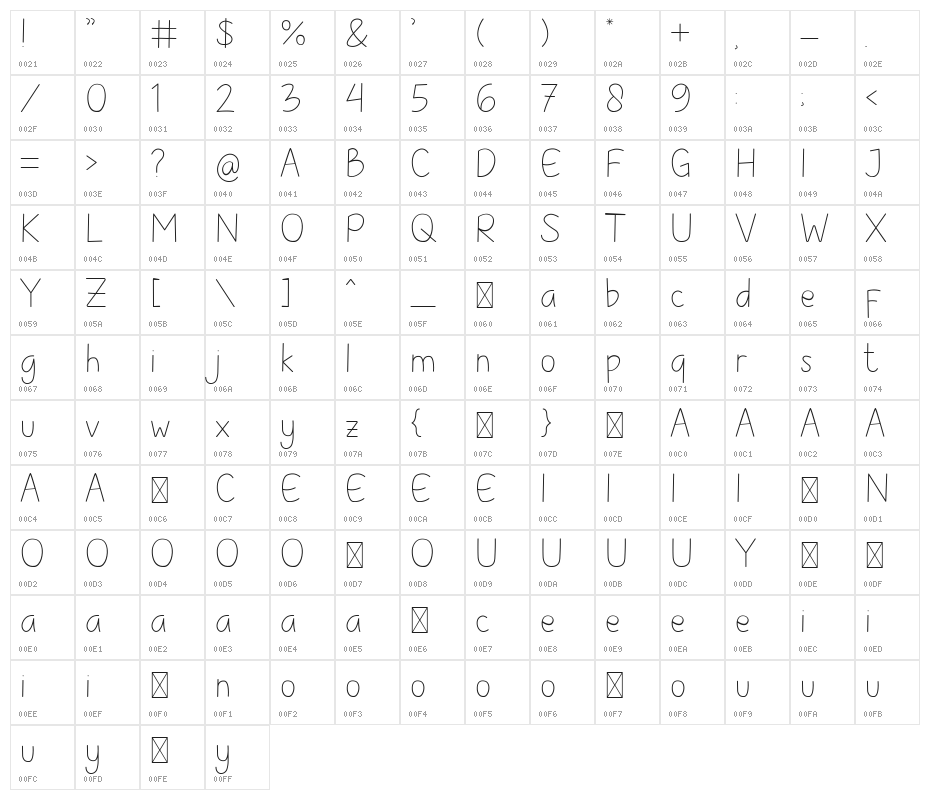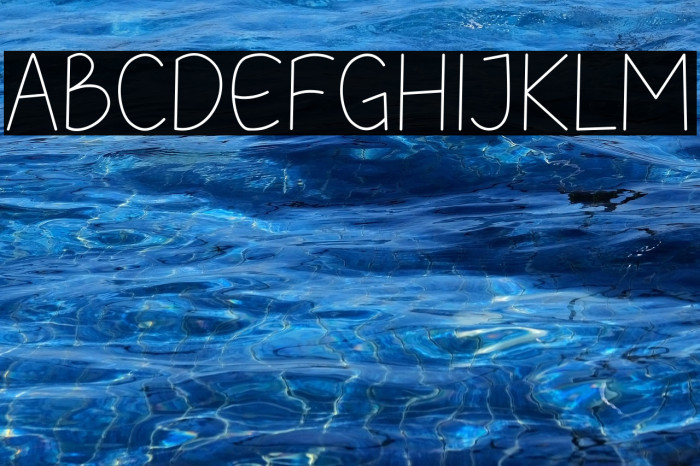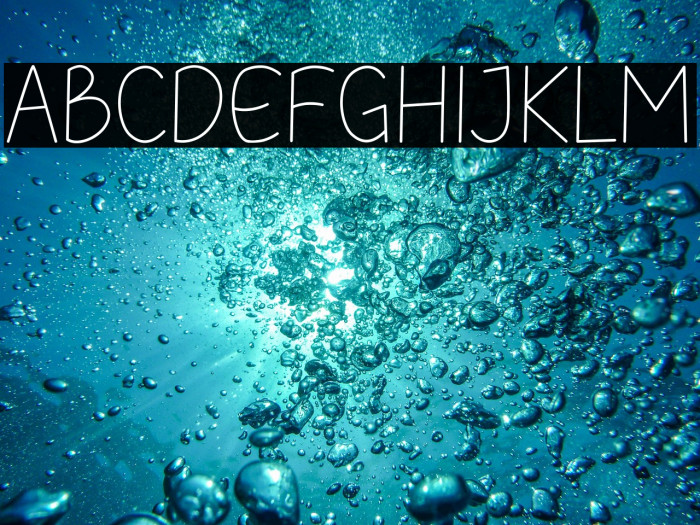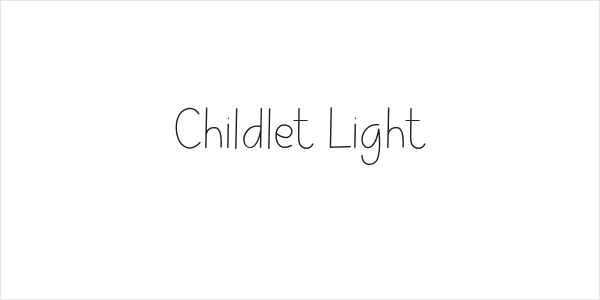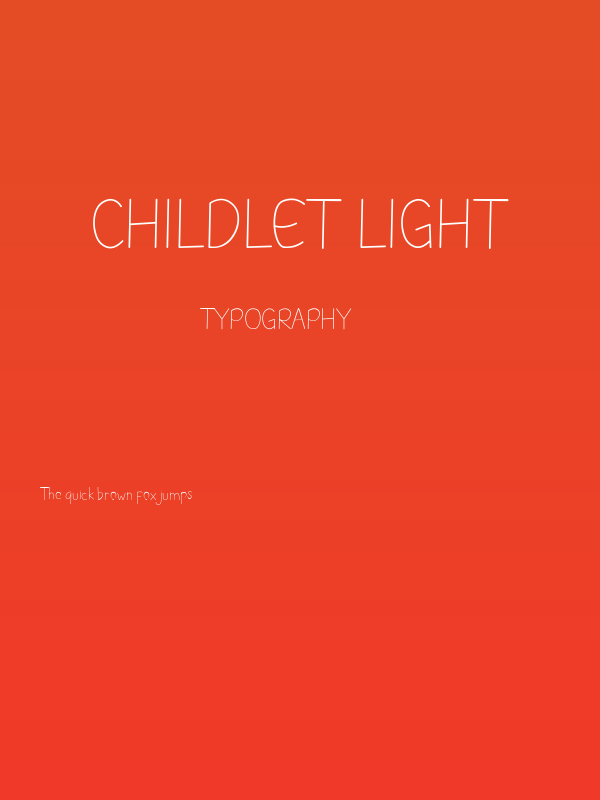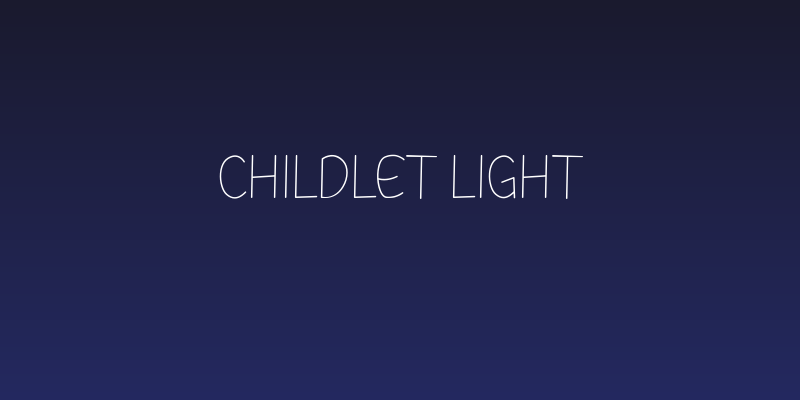
Childlet Light Font
Childlet Light Description
This font features a playful and whimsical style, characterized by its thin, light strokes and rounded edges. The letters are slightly irregular, giving it a hand-drawn appearance that adds a touch of charm and personality. The uppercase and lowercase letters maintain a consistent height, contributing to a clean and cohesive look. Numbers and special characters are designed with the same playful aesthetic, ensuring uniformity across all elements. This font is ideal for projects that require a friendly and approachable feel, such as children's books, educational materials, or playful branding.
| Proposed Projects | Ideal for children's books, educational materials, playful branding, and casual invitations. |